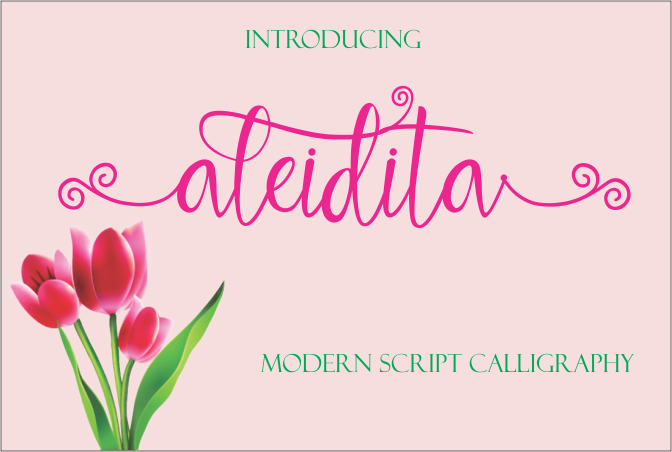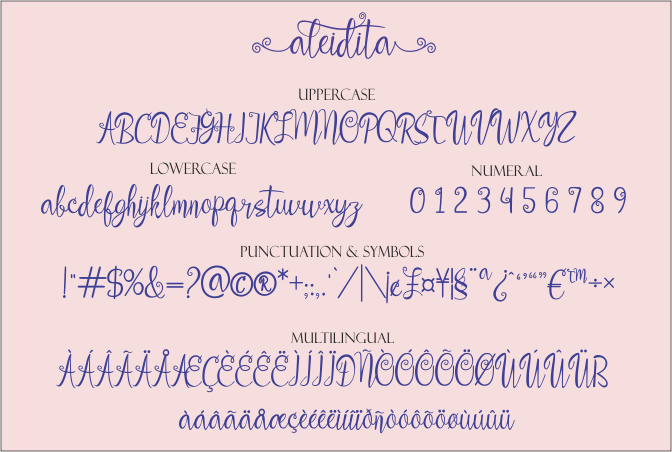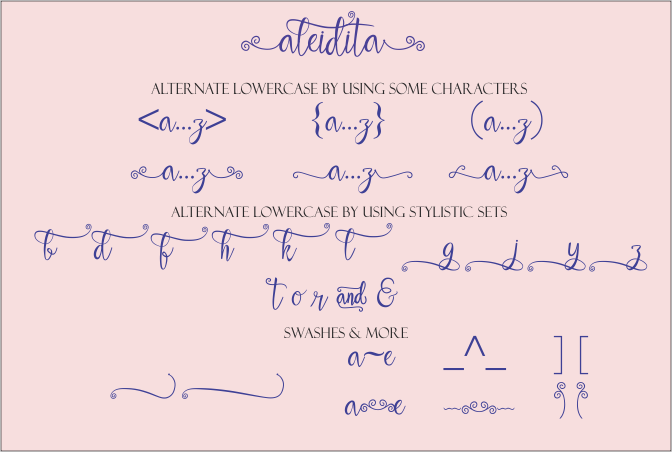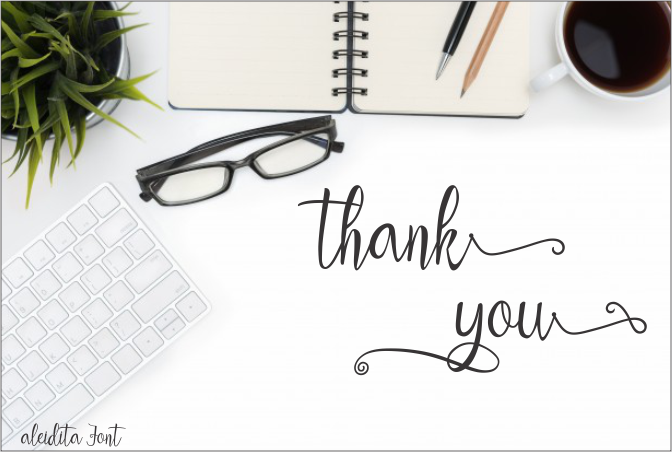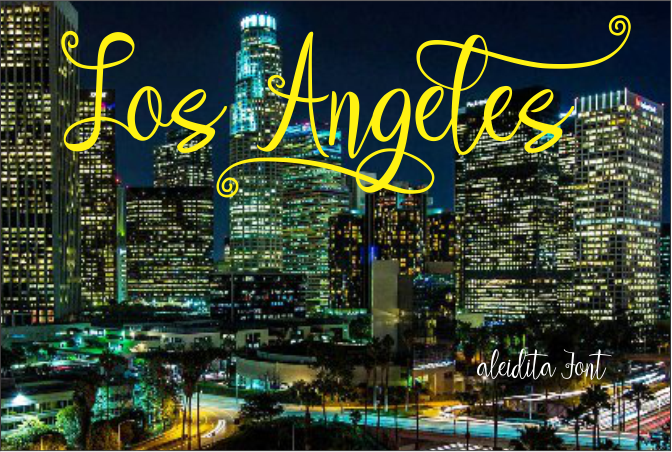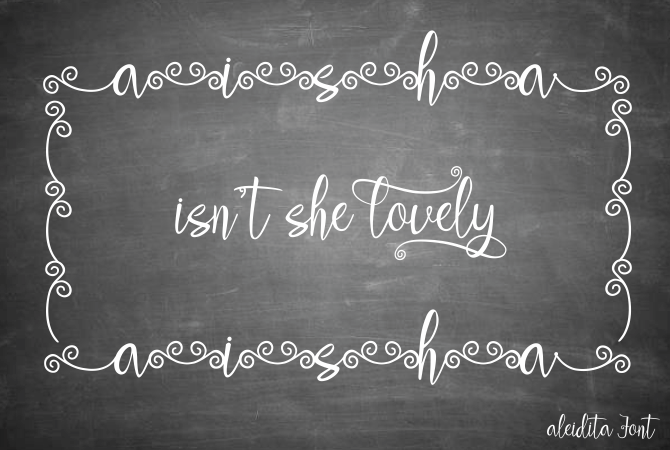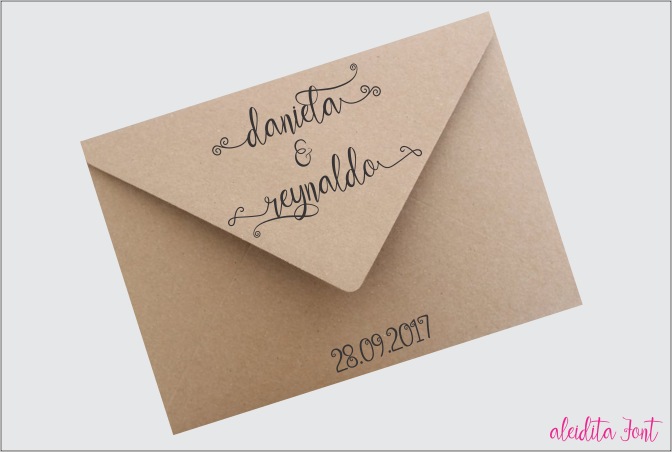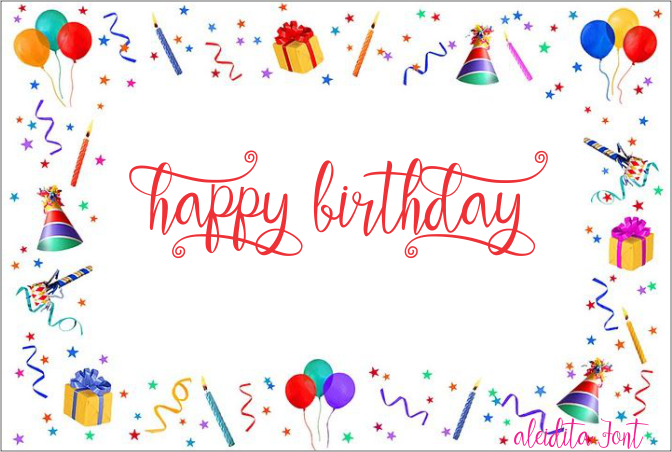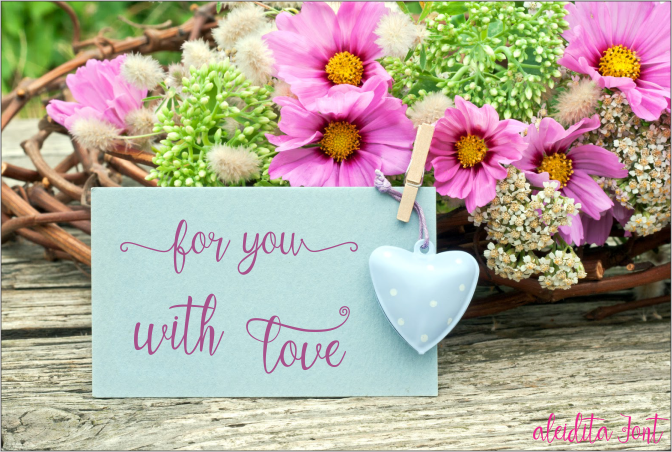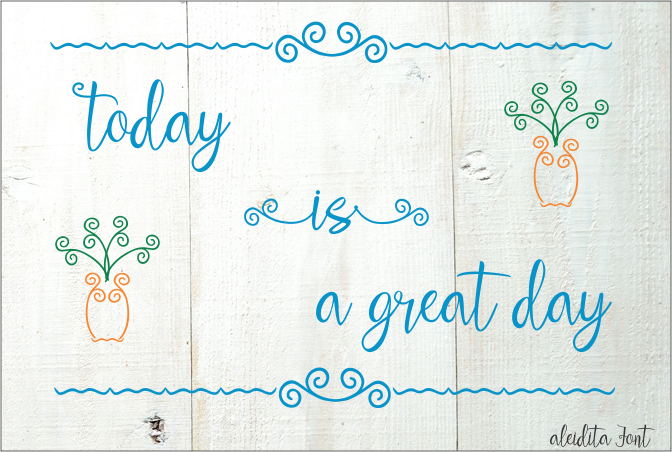
HomeScript FontsAleidita Font Script Fonts Aleidita Font FacebookXPinterestWhatsApp Aleidita Font Poster 2 Aleidita Font Poster 3 Aleidita Font Poster 4 Aleidita Font Poster 5 Aleidita Font Poster 6 Aleidita Font Poster 7 Aleidita Font Poster 8 Aleidita Font Poster 9 Aleidita Font Poster 10 Aleidita Font Poster 11 Aleidita Font Poster 12 About Aleidita Font Aleidita is a modern calligraphy-style script. DOWNLOAD ON CREATIVE FABRICAThis font is sold and delivered by Creative Fabrica. Font Canyon may earn a commission if you buy through this link. People also explored Jackart Font Galactico Font Make Sense Font Caramel Macchiato Font Summer Paradise Font Fostella Font Delicious Mango Font Monday Miracle Font Vannah Font Duo Font 287 0 TagsAleidita Font Previous articleOh, Savannah! FontNext articleOrnexo Font LEAVE A REPLY Cancel reply Comment: Please enter your comment! Name:* Please enter your name here Email:* You have entered an incorrect email address! Please enter your email address here Website: Save my name, email, and website in this browser for the next time I comment. Personal Use Free The Kingdom Personal Use Free Read more about this font Kaysan Personal Use Free Read more about this font Cretino Personal Use Free Read more about this font Hubbies Personal Use Free Read more about this font BLOG To increase your work productivity, choose the most readable fonts. In today's fast-paced work environment, where digital communication and information consumption are integral to our daily routines, the choice of fonts can significantly impact... How to Cut Any Font on Cricut: Convert a Font to SVG (Free) Top 7 Google Fonts Alternatives for Faster and Privacy-Friendly Web Design (2025) Exploring Font Trends